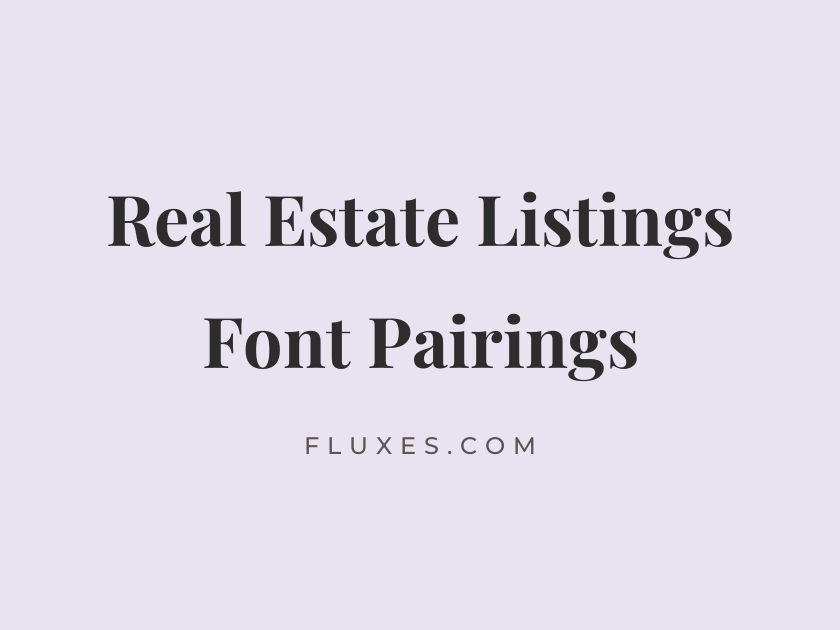
35 Best Font Pairings for Real Estate Listings
Real estate marketing spans a wide range of moods, from glossy luxury brochures to friendly neighborhood flyers, so the right typography depends heavily on the property and the buyer you are trying to reach. The pairings below cover that full spectrum, each chosen for genuine typographic compatibility rather than just visual novelty. Use them as a starting point for listing sheets, brochures, signage, and websites.
Luxury and Upscale Listings
1. Playfair Display + Lato
High-contrast serif strokes in Playfair Display read as editorial and expensive, while Lato’s even, humanist letterforms keep long property descriptions comfortable to read. This split between dramatic display and unobtrusive body text is a classic formula for high-end listing sheets.
2. Cormorant Garamond + Source Sans 3
Cormorant Garamond brings old-world elegance with its narrow, tapered serifs, and Source Sans 3 grounds it with a clean, modern structure that never competes for attention. The pairing suits heritage homes being marketed to a contemporary buyer.
3. DM Serif Display + Karla
DM Serif Display has a confident, slightly theatrical presence that photographs well on brochure covers, and Karla’s low-key geometry lets the copy do its job without visual noise. It works especially well for penthouse and waterfront listings.
4. Marcellus + Mulish
Marcellus carries the restrained confidence of classical inscriptions, and Mulish shares its calm proportions without pulling in a different visual direction. Together they suit estate listings where the architecture, not the type, should feel like the star.
5. Prata + Nunito Sans
Prata’s sharp serifs and generous height give it real presence at large sizes, while Nunito Sans offers rounded, friendly warmth that softens the formality. This combination flatters country estates and gated properties alike.
6. Poppins + Inter
Poppins is built on true geometric circles, giving headlines a crisp, contemporary edge, and Inter was designed specifically for screen legibility, making it an ideal match for digital listing pages. The two share enough structural simplicity to feel coordinated without being identical.
7. Space Grotesk + Work Sans
Space Grotesk’s slightly quirky proportions give headlines a design-studio feel, and Work Sans keeps the supporting copy neutral and easy to scan. This pairing suits new-build condo marketing aimed at design-conscious buyers.
8. Sora + Manrope
Sora and Manrope both belong to the current wave of clean, screen-native grotesques, so they share compatible x-heights and spacing without feeling interchangeable. The result reads as current and tech-forward, well suited to amenity-rich developments.
9. Outfit + Rubik
Outfit’s rounded terminals give headings a friendly, approachable tone, while Rubik’s slightly playful curves keep the body copy in the same visual family. It is a practical choice for entry-level condo listings that want to feel welcoming rather than corporate.
10. Syne + IBM Plex Sans
Syne’s unconventional proportions make a bold statement on a headline, and IBM Plex Sans, developed for a technology brand, provides a disciplined, engineered counterpoint. Together they suit listings that lean into architectural pedigree.
11. Merriweather + PT Sans
Choosing the Right Pairing
Match the mood of the typography to the property itself; a serif with heavy contrast suits a heritage estate far better than a converted warehouse. Keep body text between 16 and 18 pixels for printed brochures and slightly larger for web listing pages, since real estate copy is often read quickly on a phone.
Limit each listing to one heading font and one body font. Introducing a third typeface usually weakens the layout rather than adding sophistication.